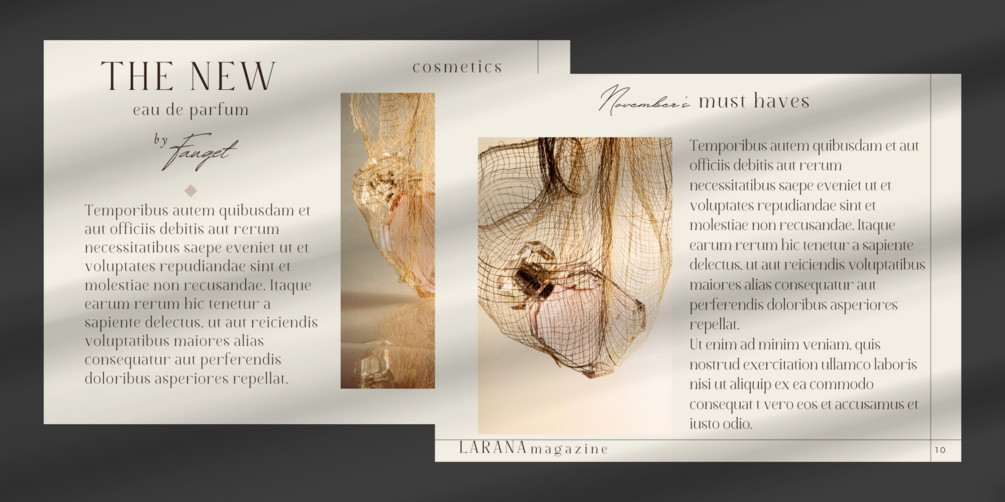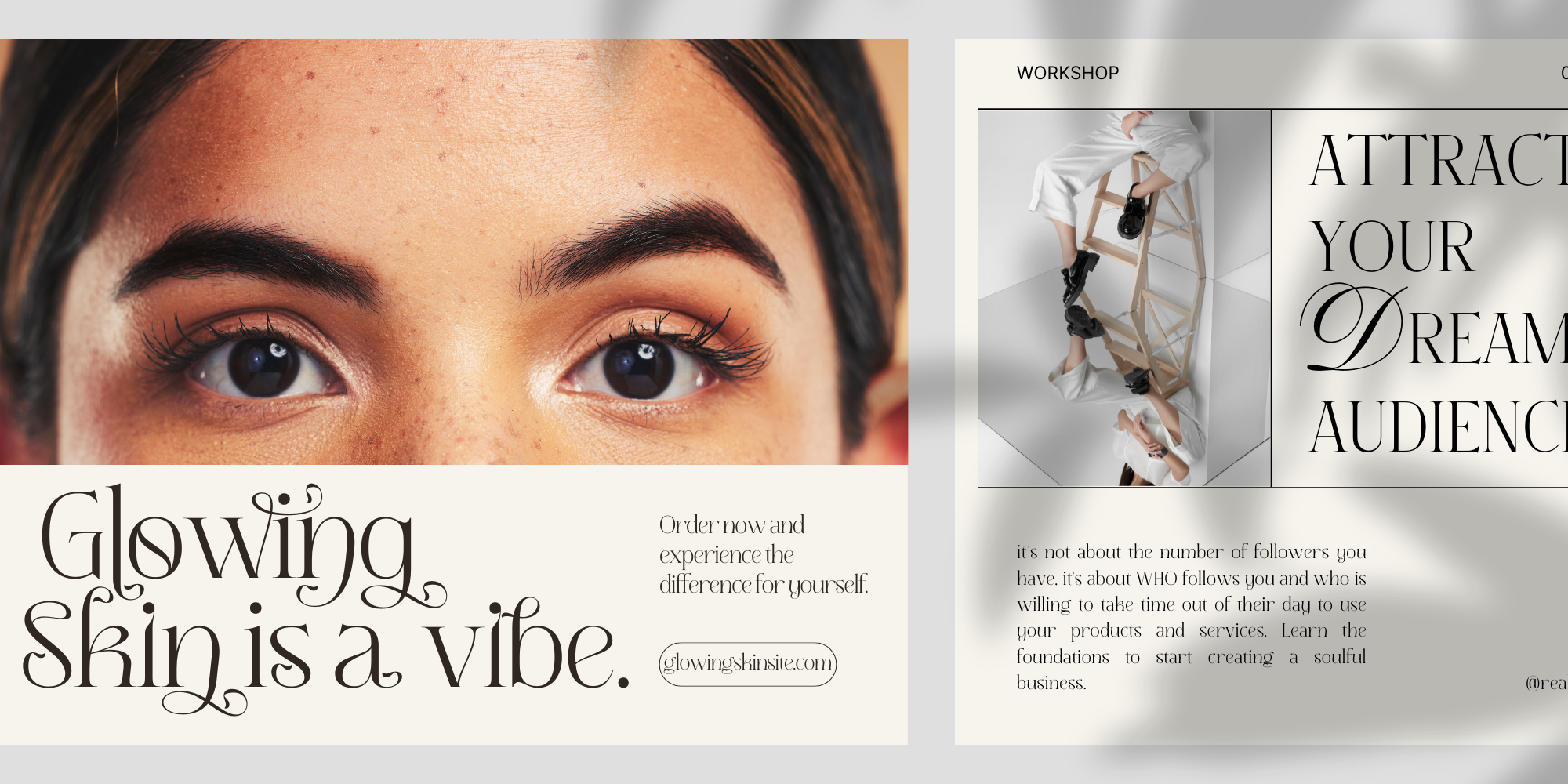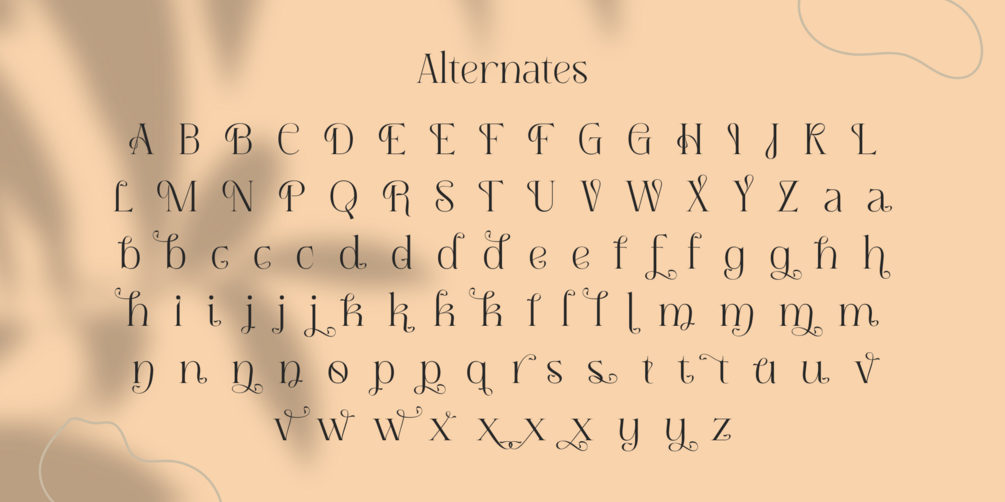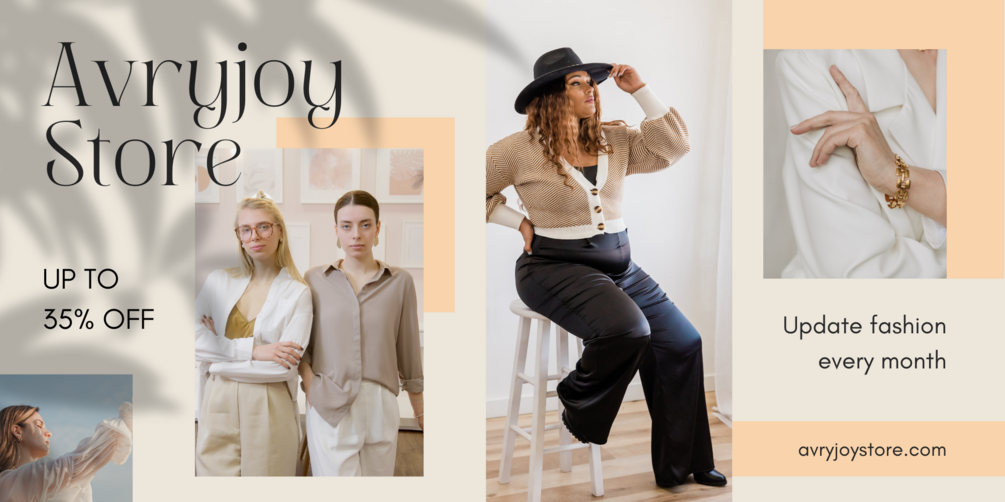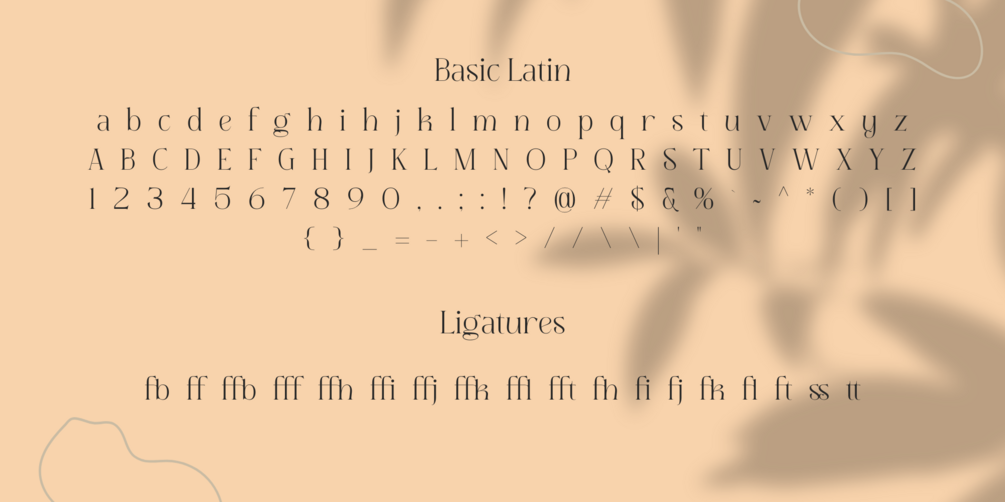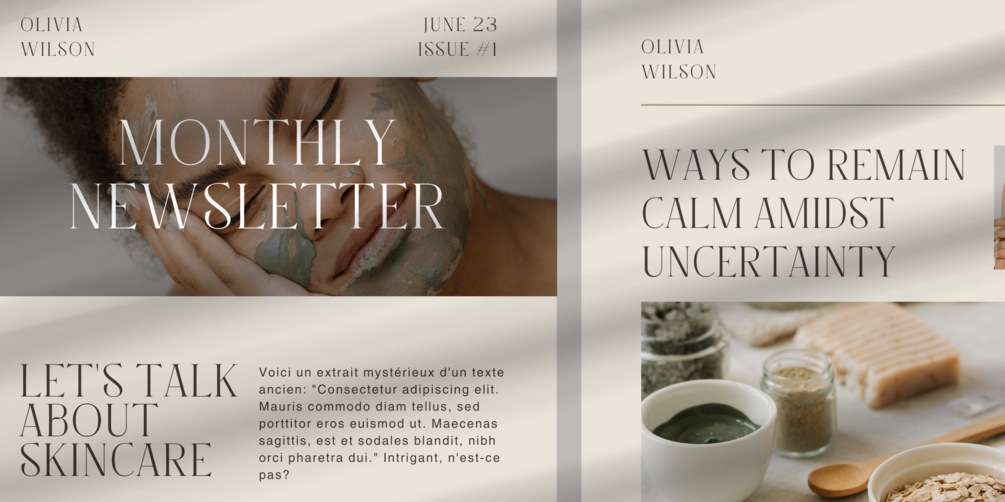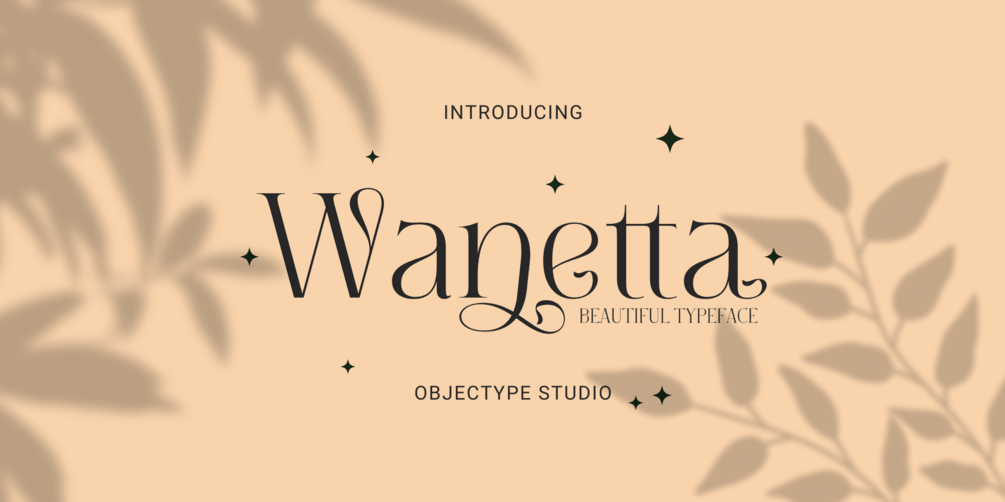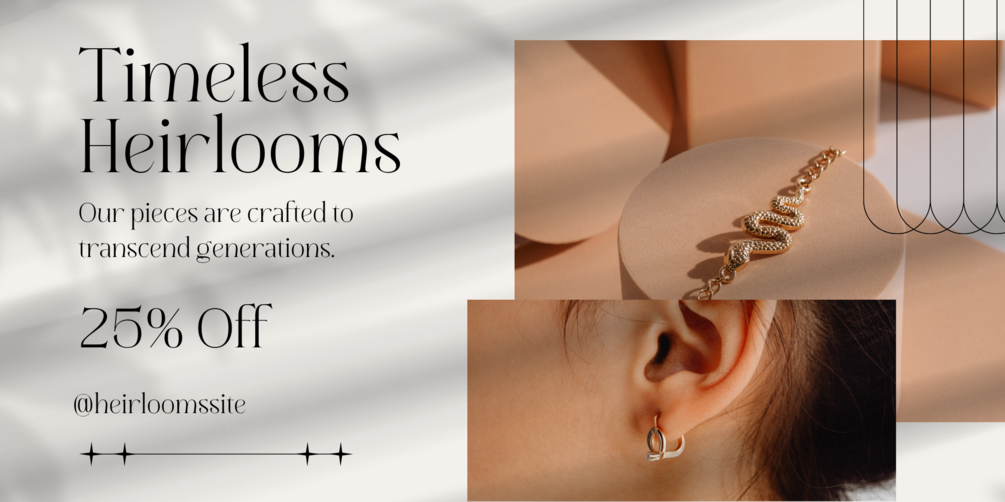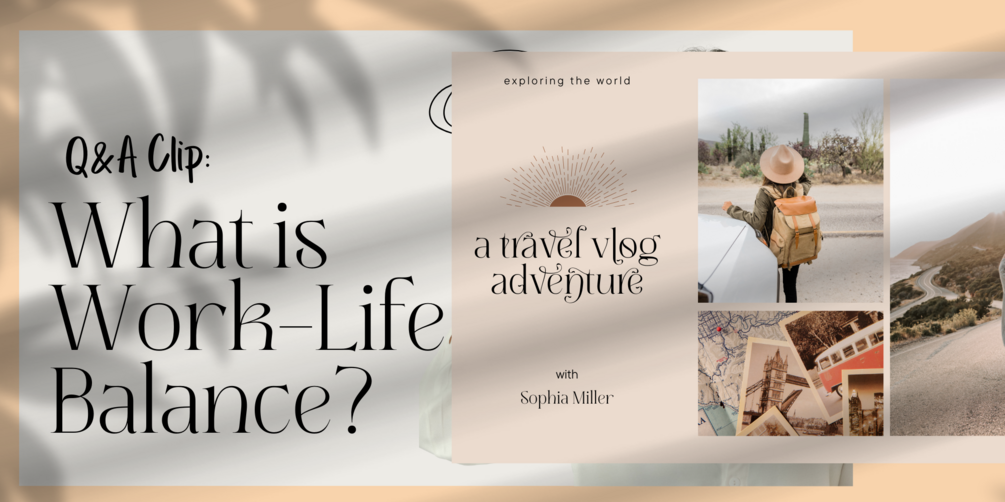
Wanetta: Artful Serif Typeface for Creative Expression
About Wanetta Font Family
Wanetta, a unique and captivating serif typeface system, is designed with heart and soul by Candi Erwanto in 2024. Wanetta is more than just letters, it's a blend of art and function, creating a perfect harmony between aesthetics and readability.
Wanetta allows for the mixing of uppercase and lowercase letters, providing unprecedented flexibility in expressing oneself through writing. With complete numbers and punctuation, as well as accented characters for international designers, Wanetta expands the boundaries of design and communication.
The benefits of using Wanetta include:
1. Improved readability: With its clear and assertive design, Wanetta facilitates text reading in various sizes and formats.
2. Enhanced visual appeal: Wanetta adds an attractive aesthetic touch that sets your design apart from others.
3. Versatility: It can be used in various contexts, whether for branding, publishing, or web design.
The target market for Wanetta is broad, encompassing:
1. Graphic and web designers are looking for a fresh and unique new font for their projects.
2. Companies and brands that want to distinguish themselves with a strong and consistent visual identity.
3. Publishers and writers who appreciate quality and readability in typography design.
With Wanetta, you're not just writing, but also creating art. Wanetta, it is more than just a font, it's your style.